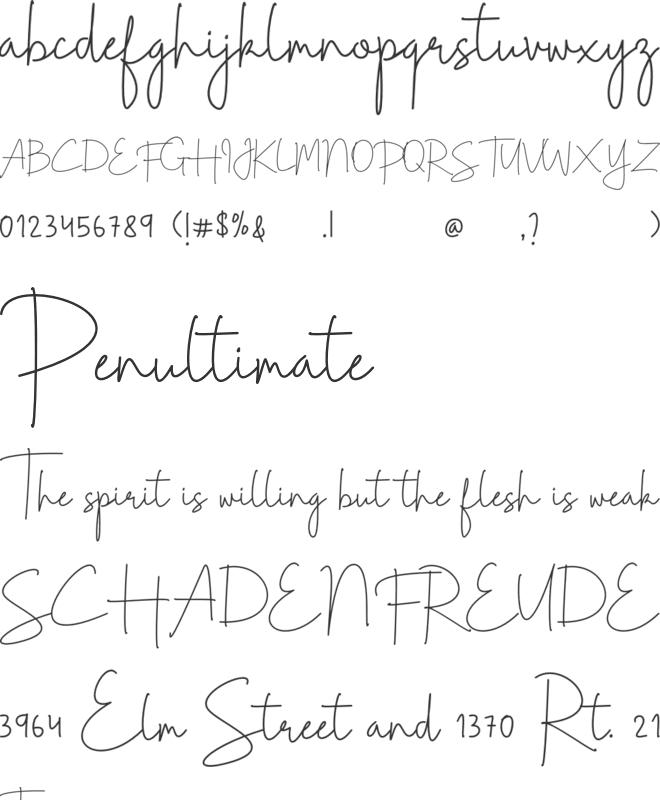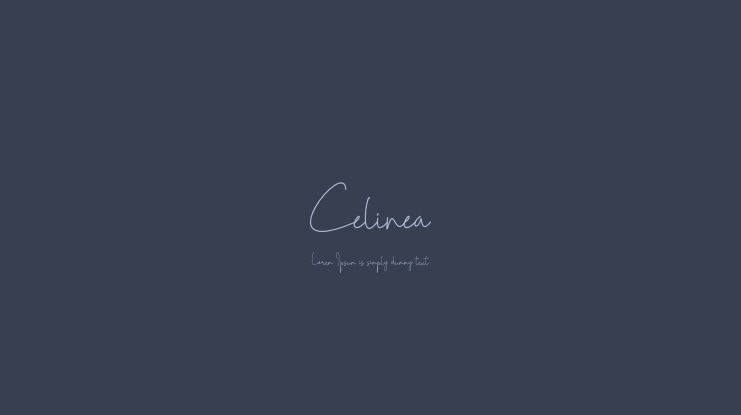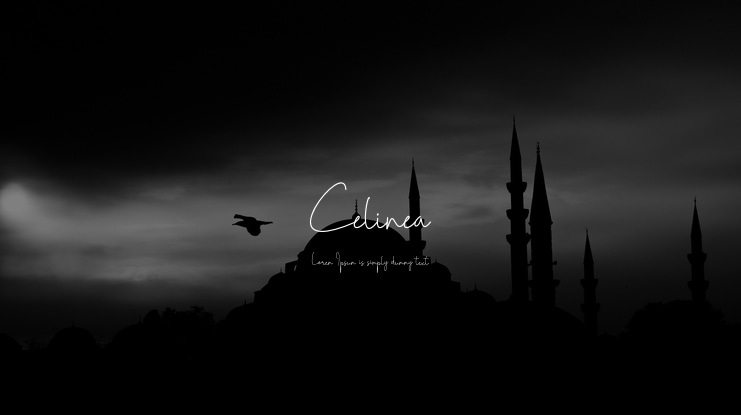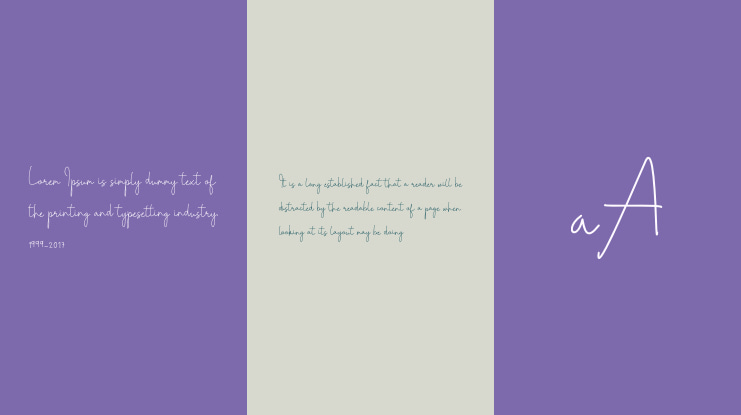
Celinea Font
Celinea is a delicate, well balanced and thin lettered script font. It looks beautiful on a variety of designs requiring a personalized style, such as wedding invitations, thank you cards, weddings, greeting cards, logos and so on.